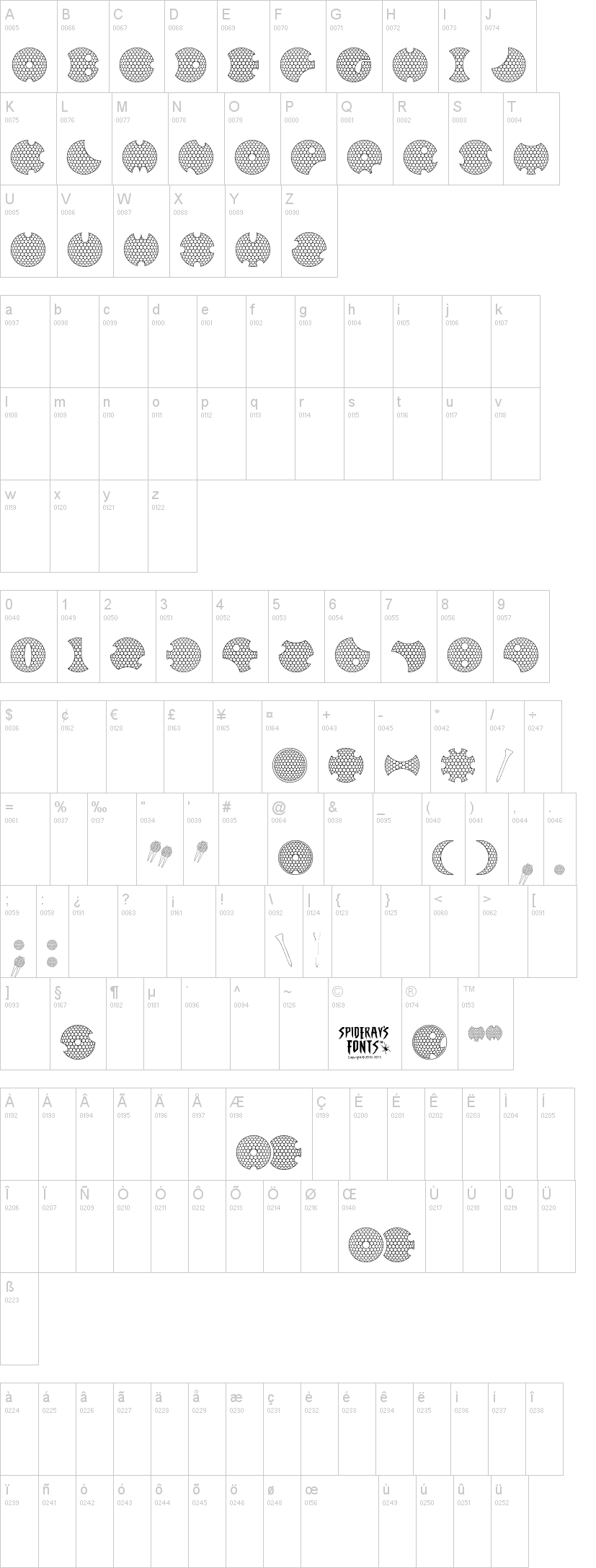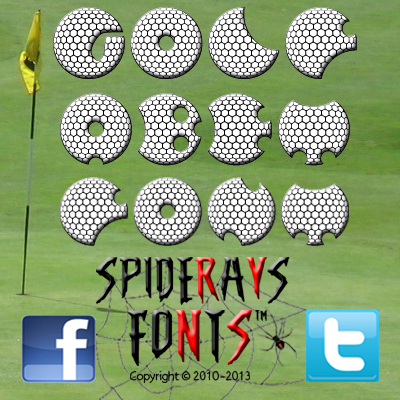
Note of the authorCreated for the sheer pleasure of trying to make a font using only variations of circles and ellipses I managed all but the G then I had the idea of using a Golf club head then the pimples followed a short while afterwards. Sorry there are no lowercase letters as the pimples don't shrink I might add solid shapes in the future releases.